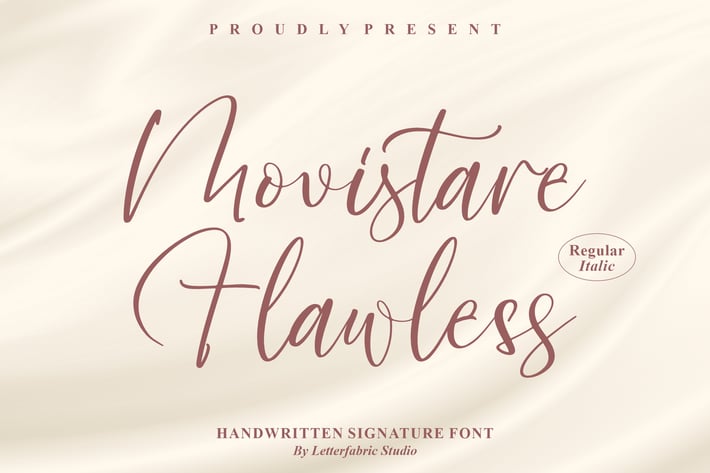
Movistare Hawless Handwritten Signature Font
Movistare Flawless is an elegant handwritten signature font that exudes a premium and refined style. With its smooth curves and sophisticated flow, it captures the essence of personal luxury and grace, making it ideal for high-end branding, invitations, and elegant event materials.
Stylish and refined handwritten signature font
Includes Regular and Italic styles
Smooth, flowing character design for a luxurious feel
Ideal for personal branding, invitations, and more
Luxury branding and identity
Elegant wedding and event invitations
High-end editorial and magazine layouts
Signature logos and personal brand designs
Greeting cards and special announcements
Where beauty meets sophistication — Movistare Flawless adds a touch of elegance to your projects.*